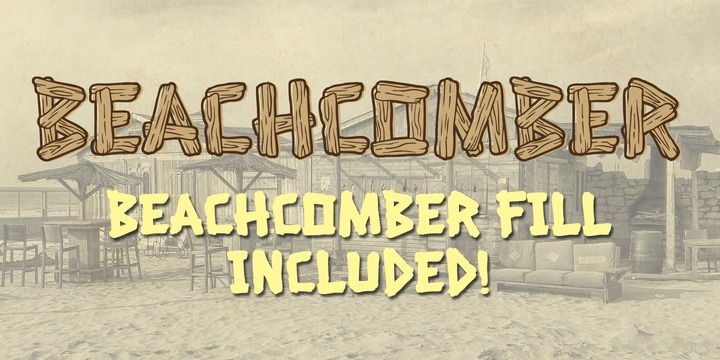
Beachcomber Font
Beachcomber Font is perfect for coastal resort branding, beach vacation marketing, seaside restaurant menus, ocean adventure campaigns, surfside boutique signage, beach house rental materials, marine lifestyle designs, and relaxed coastal hospitality brands.
What makes Beachcomber Font exciting is its wandering coastal character that captures the carefree spirit and treasure-hunting adventure of beachcombing through organically weathered letterforms that seem shaped by ocean winds and sandy shores. The font features naturally worn shapes with driftwood-like textures that evoke the peaceful exploration and serendipitous discoveries found while wandering along the water's edge. Its beachcombing aesthetic and coastal authenticity make it perfect for brands that want to communicate relaxed exploration, coastal adventure, and the kind of laid-back discovery that makes every beach walk a potential treasure hunt while creating memorable experiences that celebrate the simple joy of coastal wandering.
Beachcomber Font family includes various weathered coastal weights such as Light, Regular, Medium, and Bold variations, often featuring beach-worn alternates and ocean-inspired decorative elements. The family may include seashell symbols, driftwood ornaments, and tide-pool ligatures that enhance the font's beachcombing aesthetic, providing designers with comprehensive options for creating authentic typographic compositions that honor the art of coastal exploration and beach discovery.